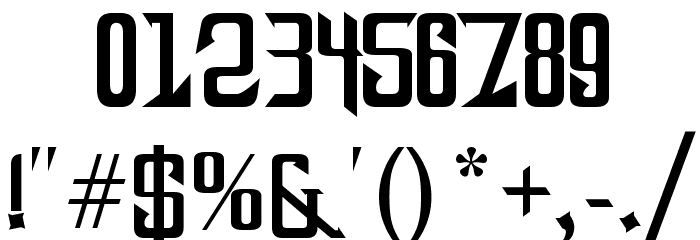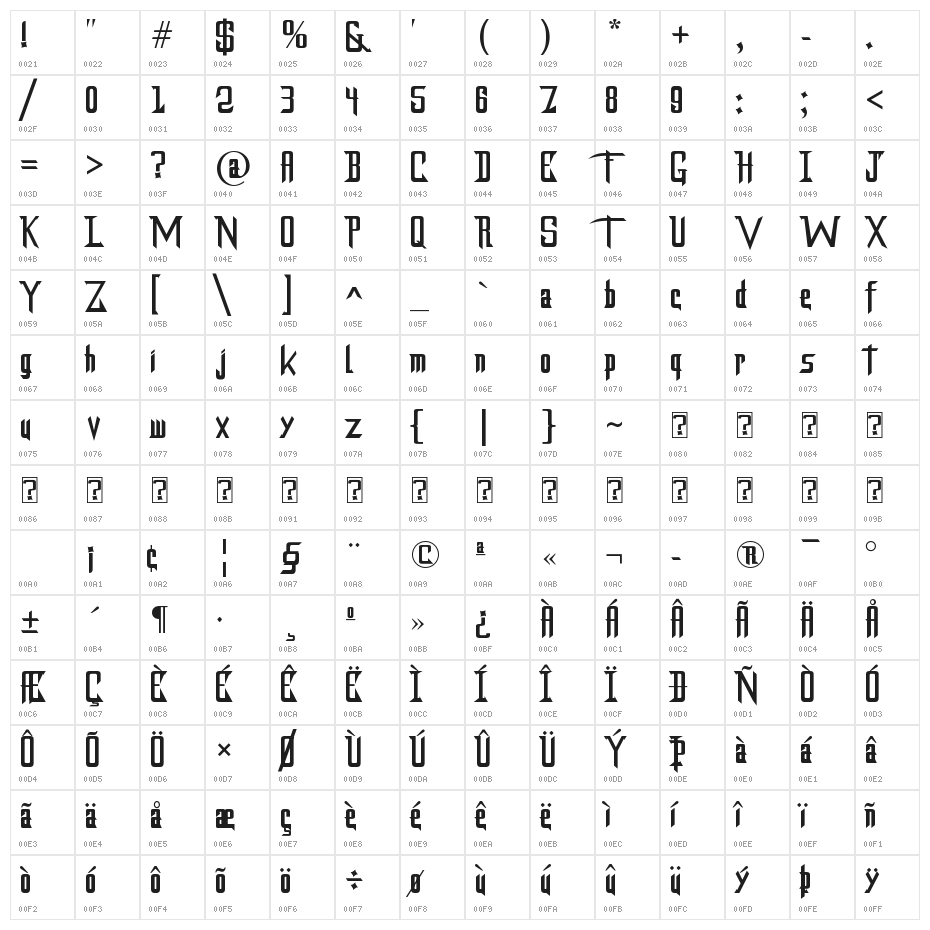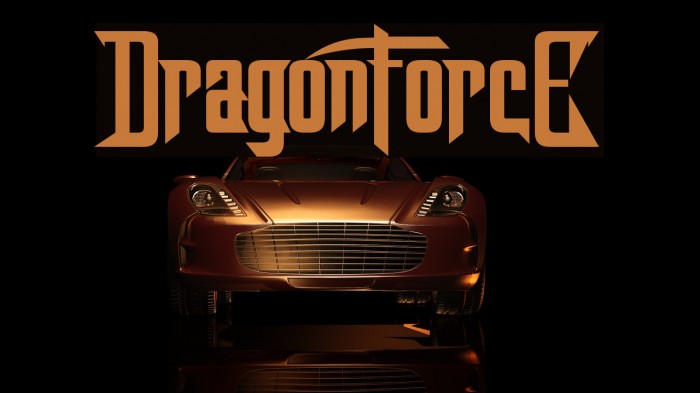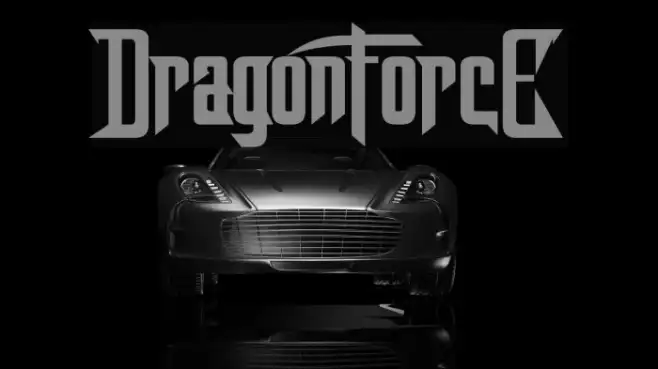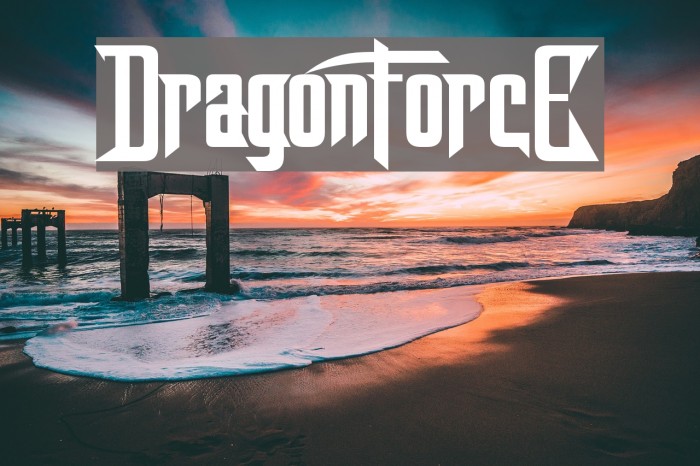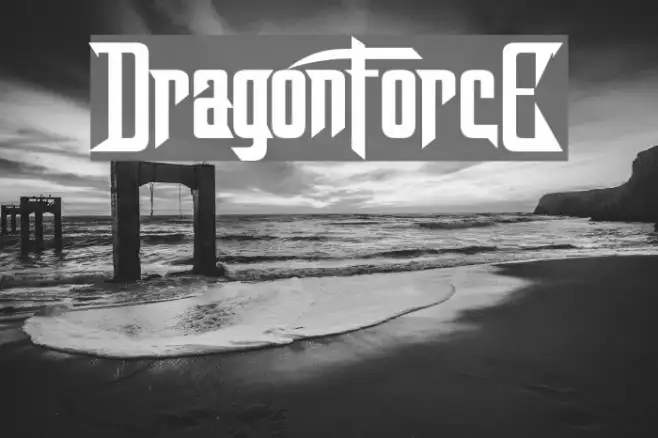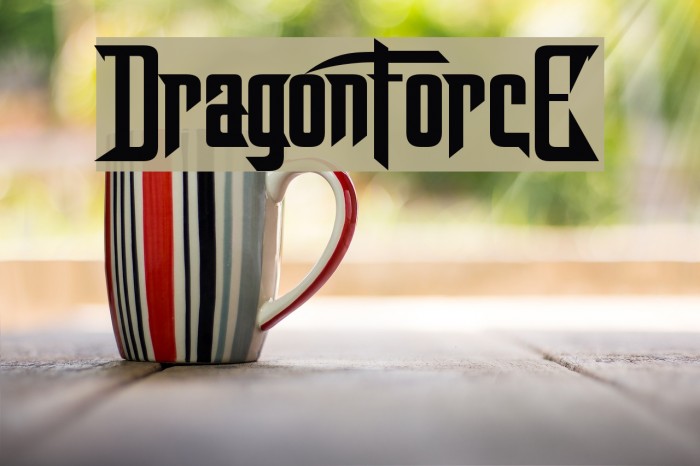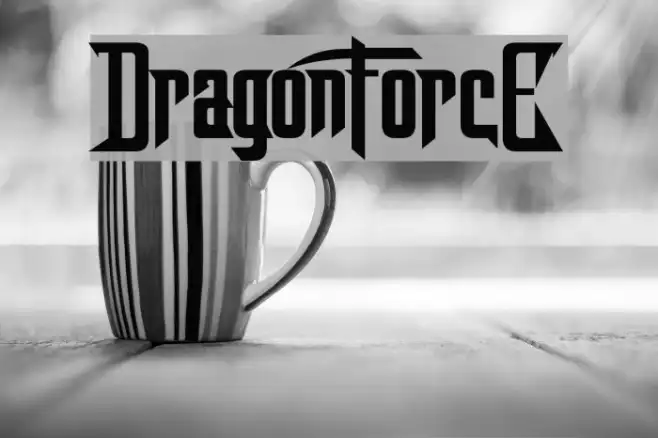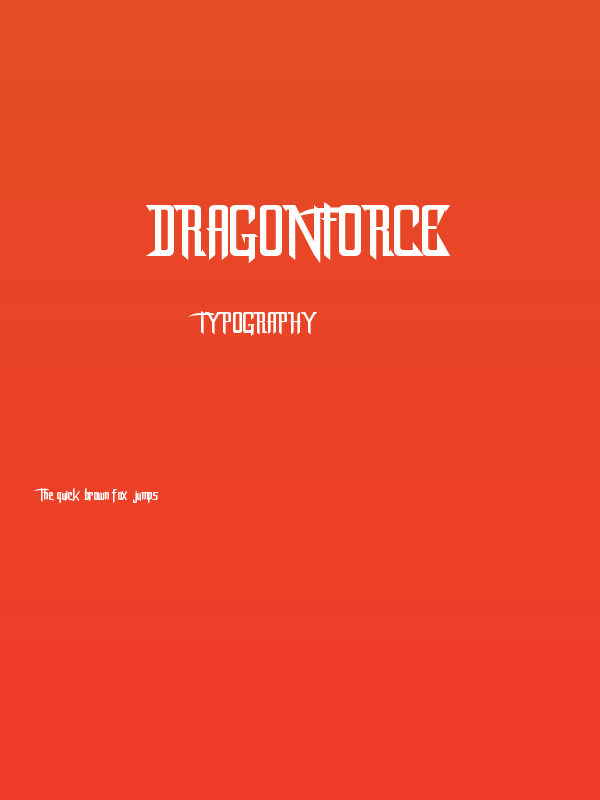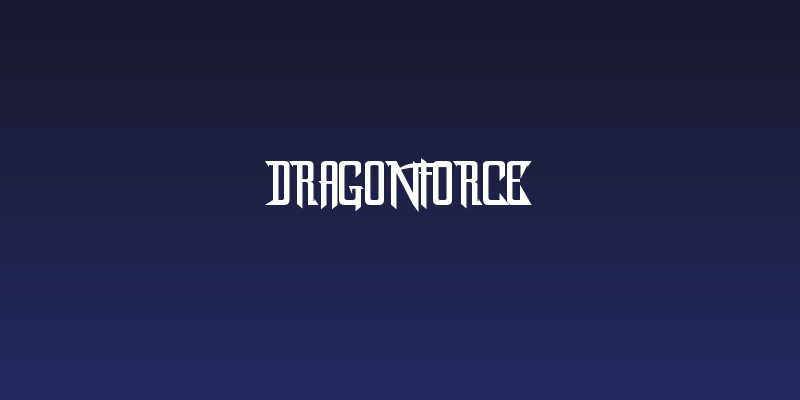
DragonForcE Font
DragonForcE Description
This font features a bold and angular design, characterized by sharp edges and a futuristic aesthetic. The uppercase letters are particularly striking, with a geometric style that conveys a sense of strength and modernity. The lowercase letters maintain this angular theme, offering a cohesive look across the typeface. Numbers and special characters are designed with the same attention to detail, ensuring consistency throughout. The font's unique style makes it ideal for projects that require a bold and impactful visual presence.
| Proposed Projects | Ideal for sci-fi themed posters, video game titles, branding for tech companies, and any project needing a modern, edgy look. |